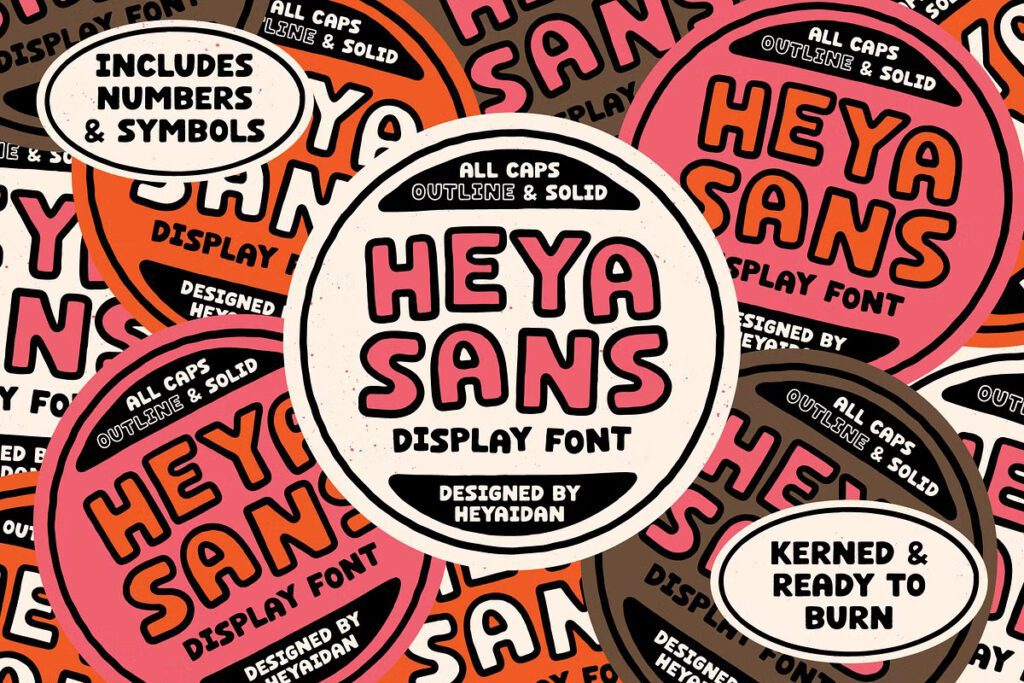
HEYA Sans: All Caps Display Font
Introducing HEYA Sans, a fun, bold, and blobby all caps display font that brings an energetic twist to any design project. Whether you’re working on posters, t-shirts, illustrations, or other creative ventures, this hand-drawn font promises to deliver a unique touch with its playful, wobbly lettering. Perfect for both large and small-scale designs, HEYA Sans offers a solid filled version and a wobbly outline version to suit diverse design needs.
Key Features of HEYA Sans:
Handwritten Style Based on the artist’s blocky lettering, HEYA Sans injects a personal, hand-drawn feel into your work, making it stand out from traditional sans-serif fonts.
Versatile Use Whether you’re designing for print or digital platforms, this bold, playful font is ideal for posters, apparel, branding, and more.
Solid filled version
Wobbly outline version
This dual offering gives you flexibility and creativity to mix and match styles in your design projects.
All Caps Font HEYA Sans includes letters in all caps, along with numbers, punctuation, and symbols, providing everything you need for comprehensive typography.
Custom Alternatives For added variation, alternatives for A, I, S, and Y are included, making it easy to create a custom look in your work.
Perfect for Illustrations If you’re an illustrator looking for a playful yet bold typeface, HEYA Sans will fit seamlessly into your designs.
Why Choose HEYA Sans?
Playful, bold design
Two distinct styles (solid and outline)
Perfect for a wide range of design projects
Includes numbers, punctuation, and alternatives for customization
Unleash your creativity with HEYA Sans, and bring an extra touch of fun to your next project.